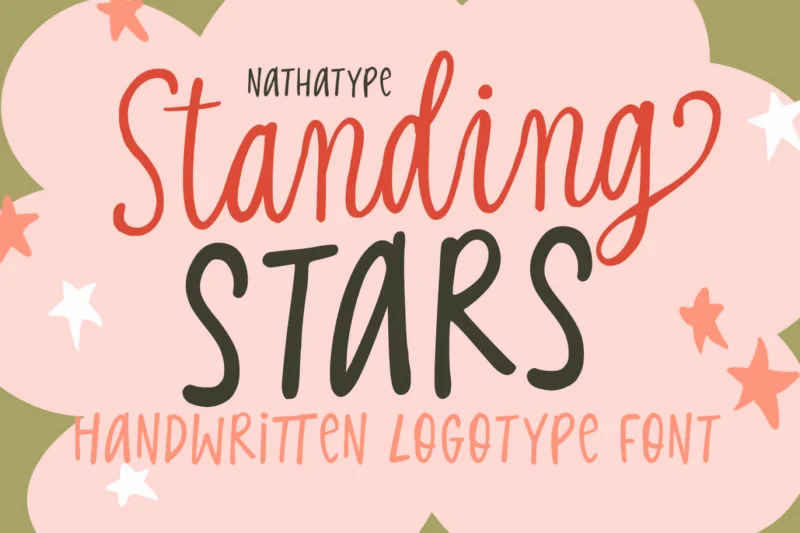
Standing Stars
Standing Stars is a handwritten sans serif font duo designed to bring sweetness, creativity, and charm to your typography. This adorable pairing blends the natural flow of a connected handwritten script with the clean simplicity of an uppercase sans serif font crafted in a light weight. Together, these two styles create a delightful and harmonious combination that feels playful, modern, and full of personality. In addition, enjoy the features here.
Standing Stars fits in branding, quotes, invitations, logos, posters, and many more designs. Find out more ways to use this font by taking a look at the font preview.